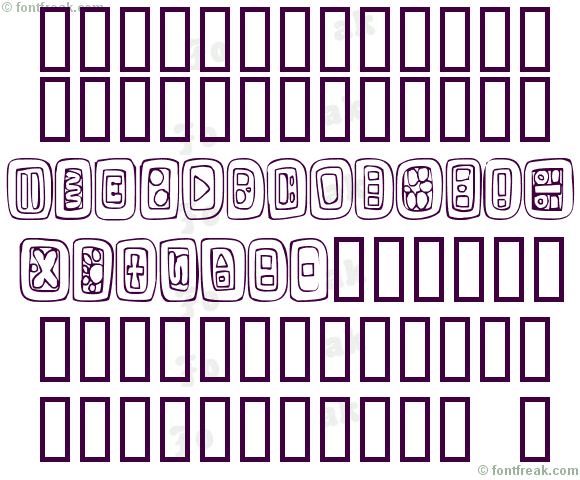
Natural Signs
About Natural Signs
The Natural Signs font, crafted by Samuel Marcius in 1998, is a unique decorative typeface that stands out with its playful and organic style. This font falls into the category of display typefaces, characterized by its bold, whimsical design that captures the essence of natural forms and signs. The strokes of the letters exhibit a consistent weight, providing a sense of solidity while maintaining a friendly and inviting appearance. The rounded edges and irregular shapes introduce a touch of spontaneity, enhancing its decorative flair. The spacing is thoughtfully designed, allowing for easy readability while embracing a creative aesthetic.
Natural Signs is particularly well-suited for a variety of creative applications. Its distinctive style makes it an excellent choice for eye-catching wedding invitations, where the playful nature can evoke a sense of joy and celebration. Additionally, it can be effectively utilized in restaurant menus, adding a charming and rustic touch that resonates with a casual dining atmosphere. Movie posters would benefit from its bold presence, drawing attention and setting the tone for a light-hearted film. Furthermore, this font can enhance branding for small businesses looking to convey a friendly and approachable image.
What truly sets the Natural Signs font apart is its ability to blend fun and functionality. It captures the essence of nature and creativity, allowing designers to evoke emotions and connect with audiences in a visually engaging manner. Whether used sparingly or as the focal point of a project, this font is sure to leave a lasting impression.